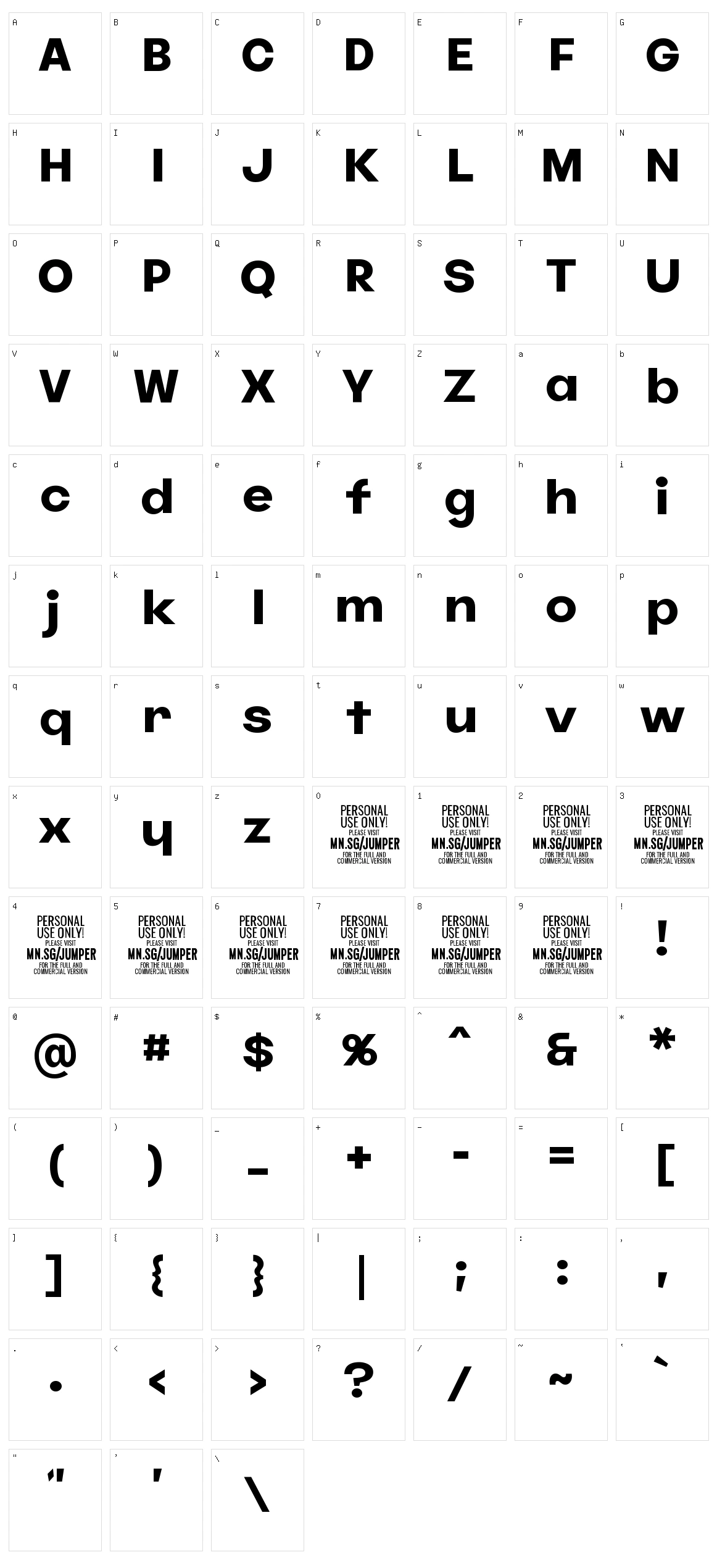
Jumper is an optimistic sans-serif typeface family.
Drawn and created by Mans Greback between 2019 and 2021, Jumper is a speedy, naive type for logotypes, headlines and body text.
The geometric components merge seamlessly with the organic shapes, resulting in a professional but genuine lettering.
With a sport character reminiscent of typography in famous brands such as Nike and Adidas, this type is active, happy and has great velocity.
The twelve complementing styles gives great variety to your design: Thin, Light, Regular, Bold, Extra-Bold, Black, and each weight as Italic.
Also includes a variable font!
Only one font file, but the file contains multiple styles.
Use the sliders in Illustrator, Photoshop or InDesign to manually set any weight and slant.
This gives you not only the 16 predefined styles, but instead more than a thousand ways to customize the type to the exact look your project requires.
The font is built with advanced OpenType functionality and has a guaranteed top-notch quality, containing stylistic and contextual alternates, ligatures and more features; all to give you full control and customizability.
It has extensive lingual support, covering all Latin-based languages, from North Europe to South Africa.
It contains all characters and symbols you'll ever need, including all punctuation and numbers.